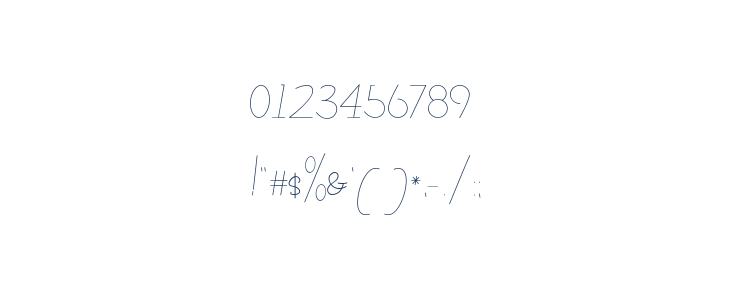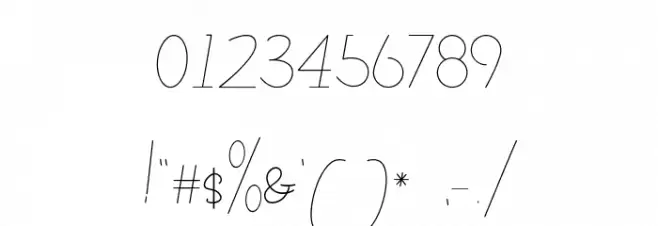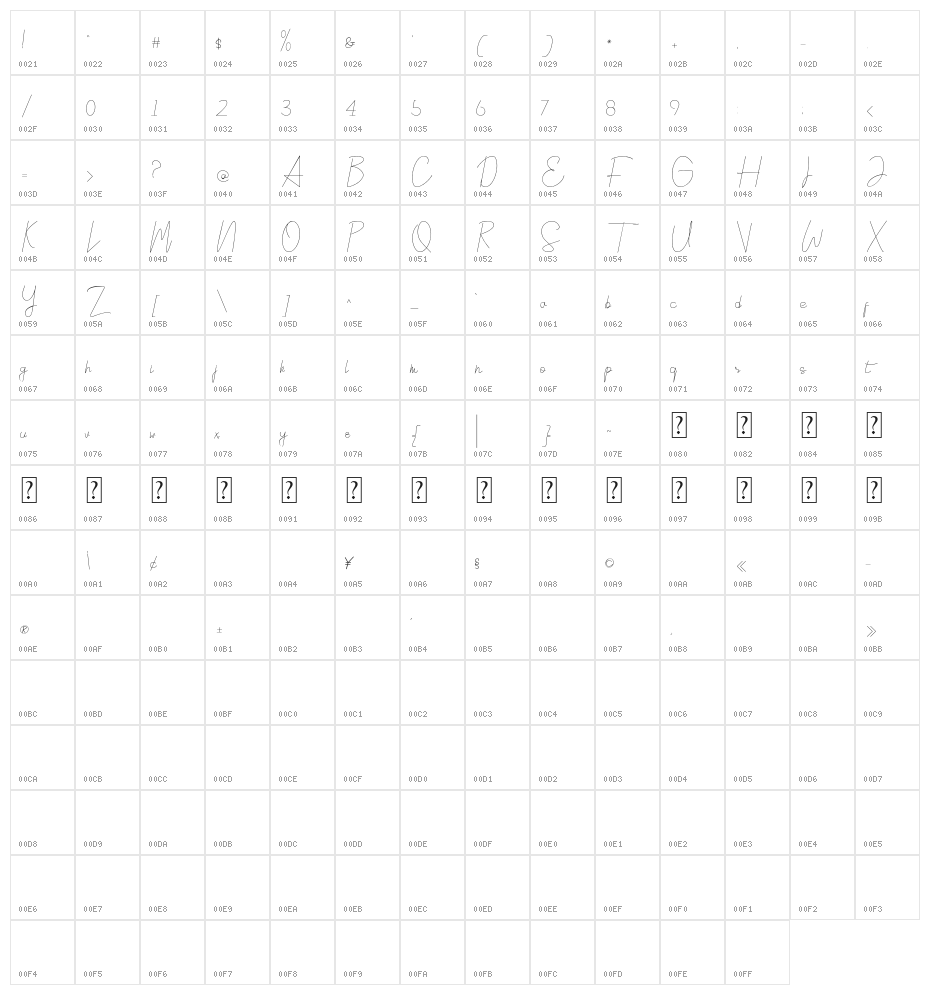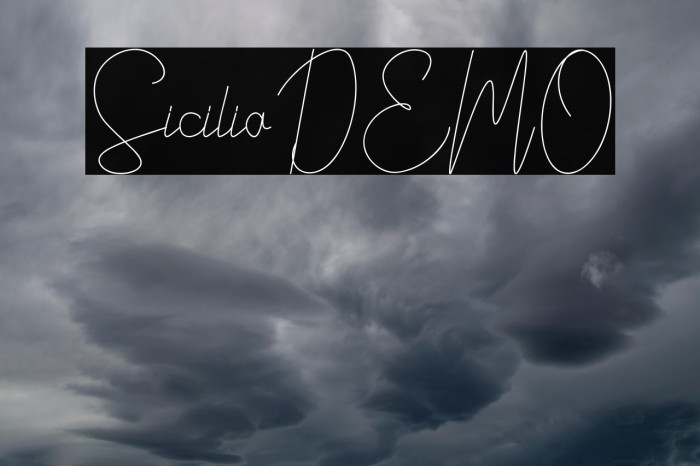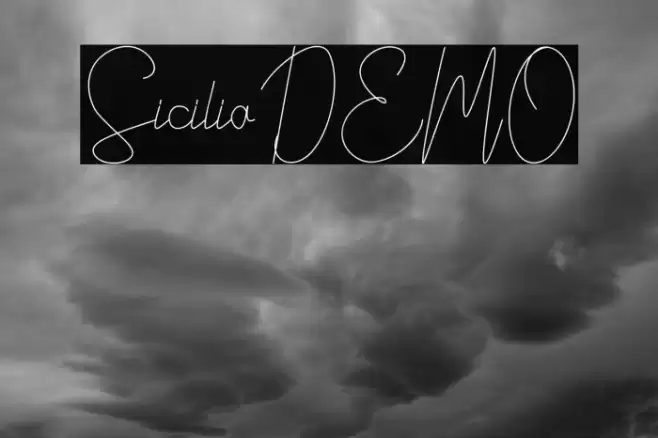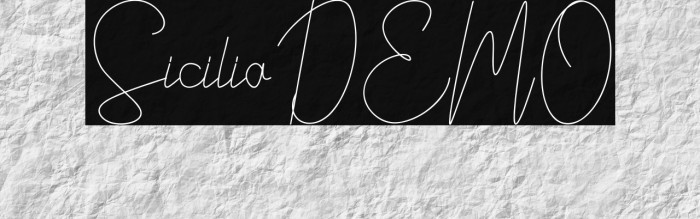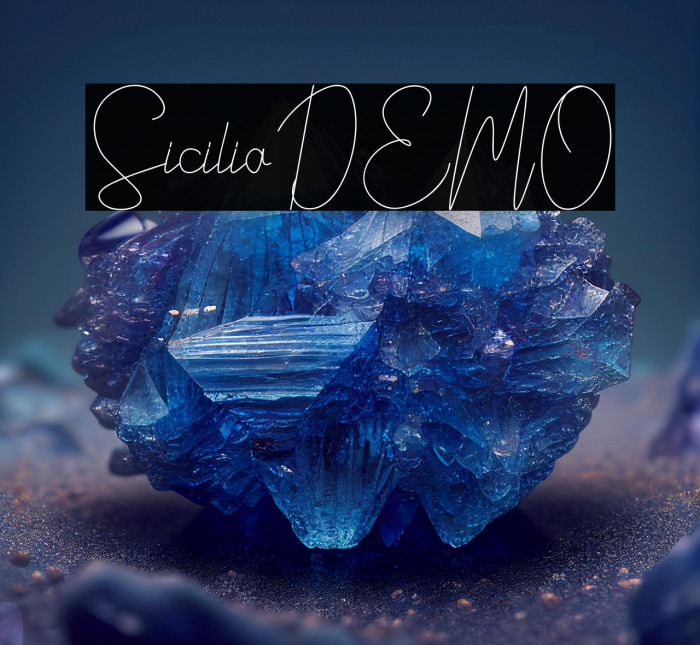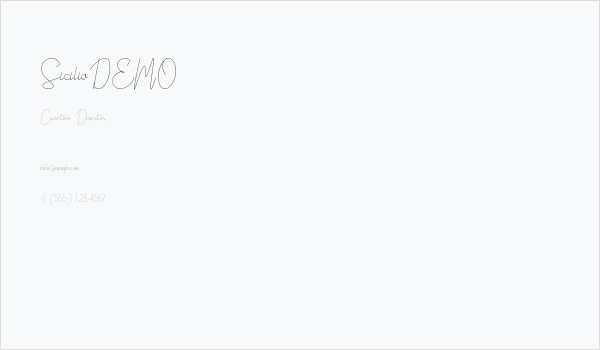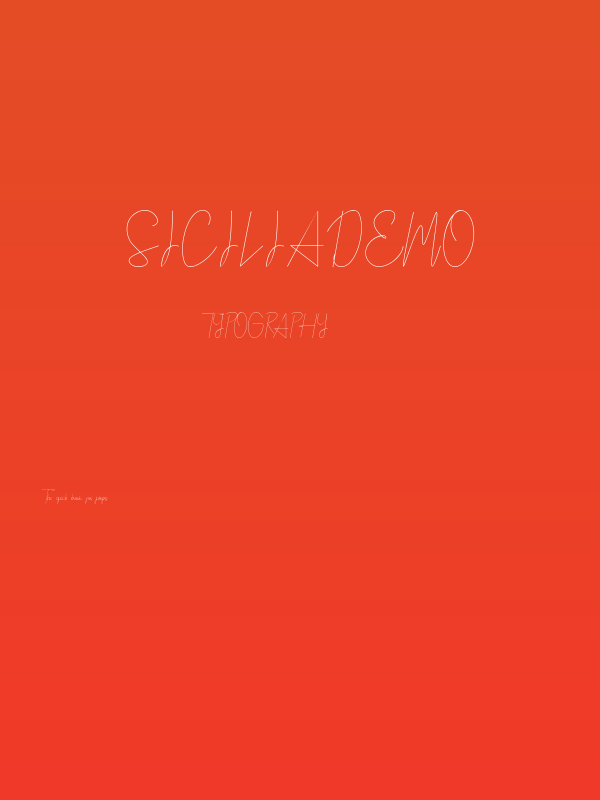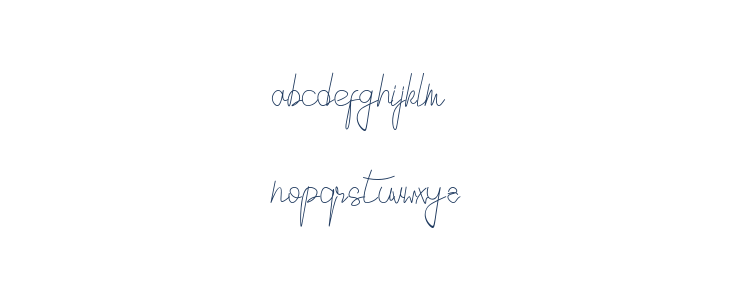
SiciliaDEMO Font
SiciliaDEMO Description
This font features a delicate, handwritten style with a modern twist. The characters are thin and elongated, giving an elegant and airy feel. The uppercase letters have a distinctive flair, with some strokes extending beyond the baseline, adding a touch of whimsy. The lowercase letters maintain a consistent flow, enhancing readability while retaining a unique character. Numbers and special characters are crafted with the same attention to detail, ensuring a cohesive look across all text. This font is perfect for projects that require a personal, artistic touch.